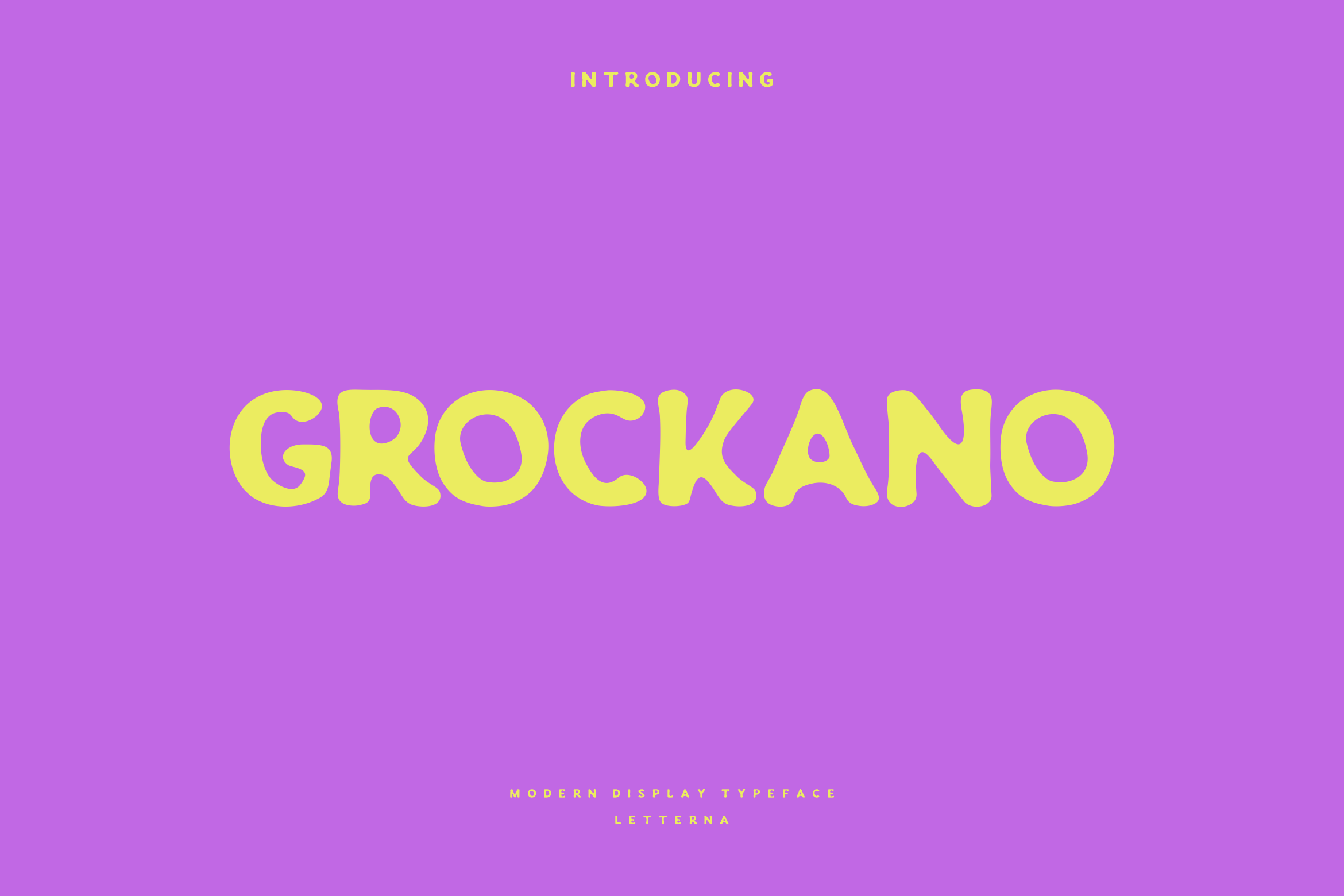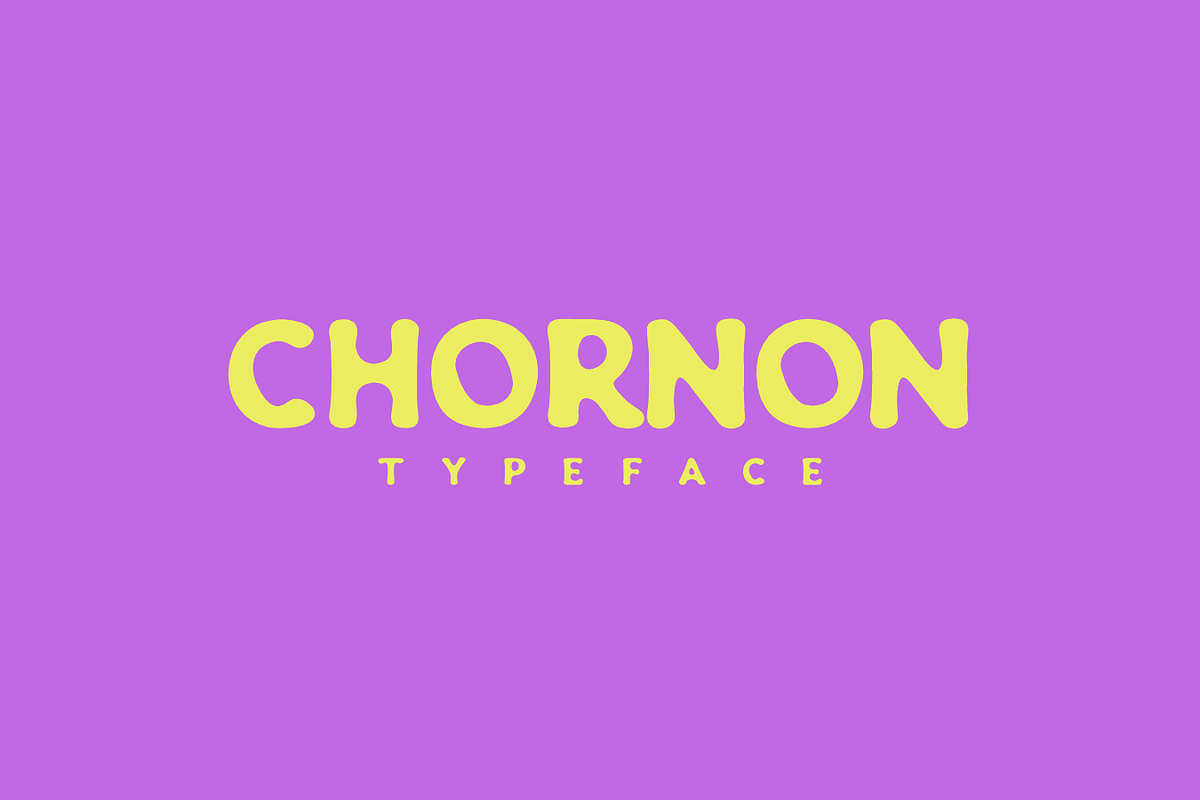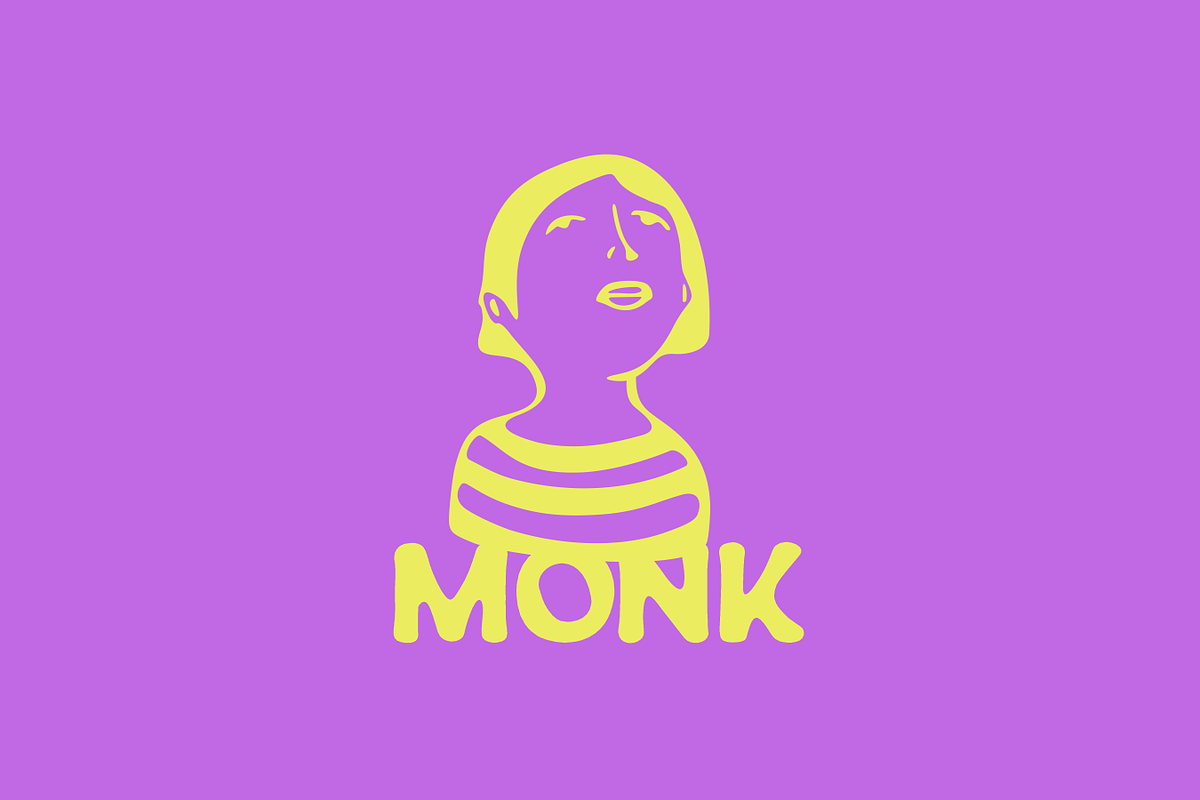
Grockano - Modern Display Typeface
Grockano font a fun display typeface with cheerful theme for your fun project. This font looks wild, vintage but has a timeless feel, suitable for logo, branding, greeting card, poster and any design that you create.